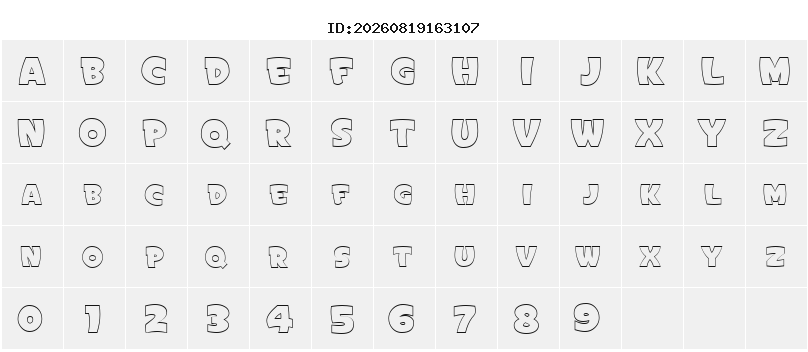
Sign Painter's Gothic OSC JL Preview
• Font Name: Sign Painter's Gothic OSC JL
• Font ID: Sign Painter's Gothic OSC JL
• Full Font Name: Sign Painter's Gothic OSC JL
• Designer: Jeffrey N. Levine
• Manufacturer: Jeff's Fonts & Dingbats
• Description: "Sign Painter's Gothic JL" in outline form with small caps.
About Sign Painter's Gothic OSC JL.ttf
Sign Painter's Gothic OSC JL.ttf is a modern, elegant sans-serif font designed for ultimate readability and visual harmony. Perfect for branding, headlines, web design, and print materials.